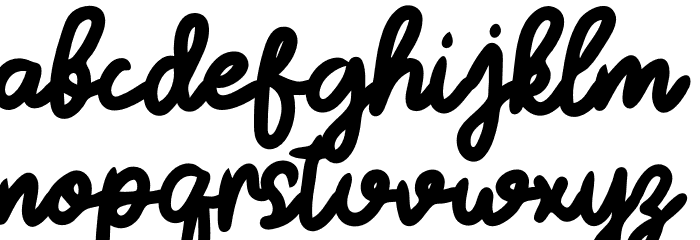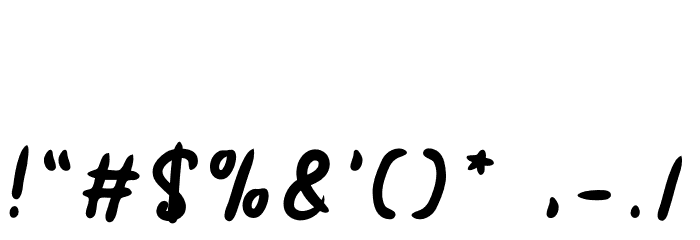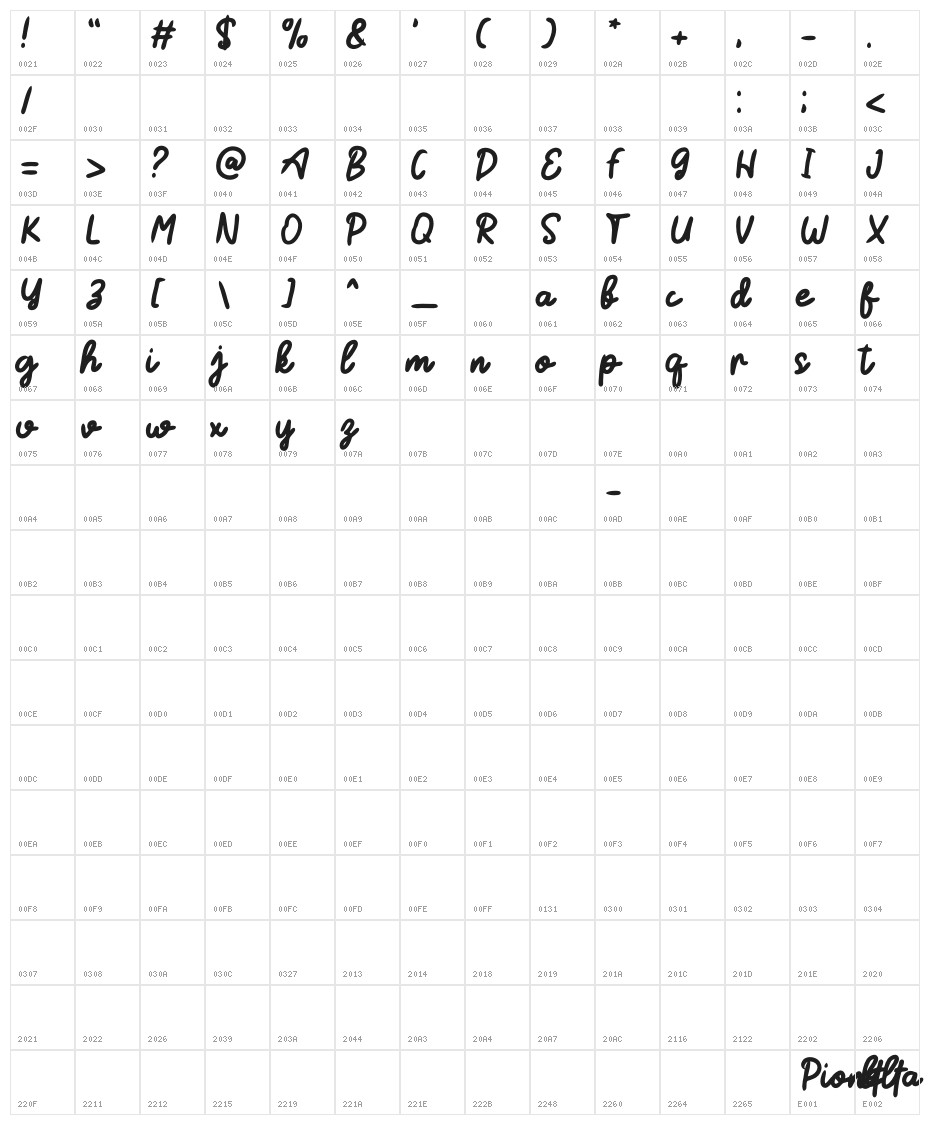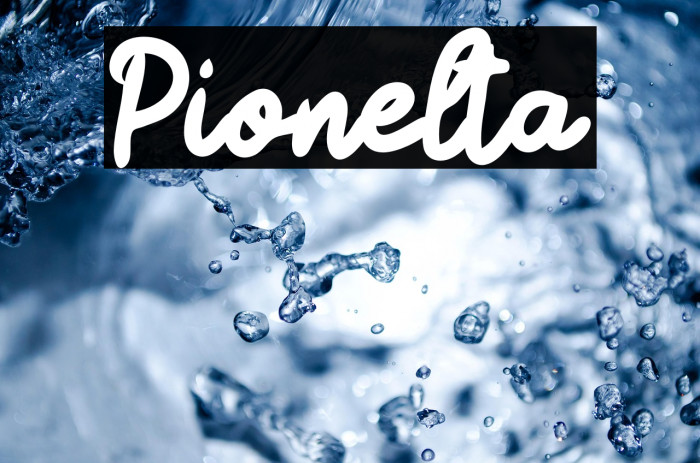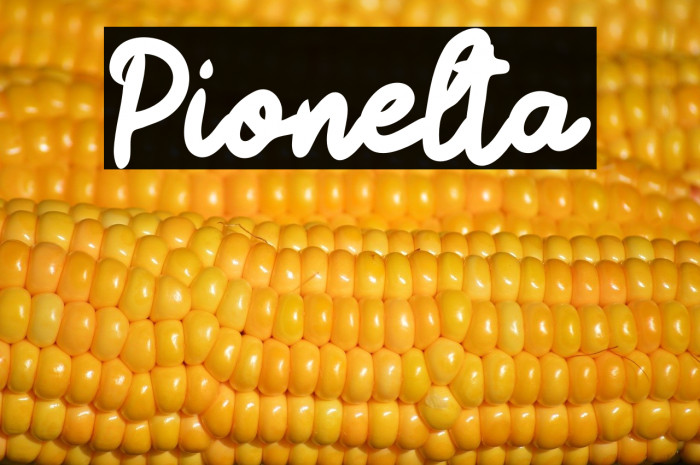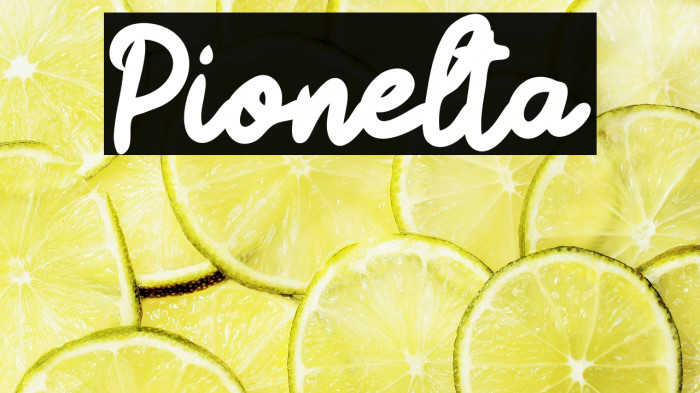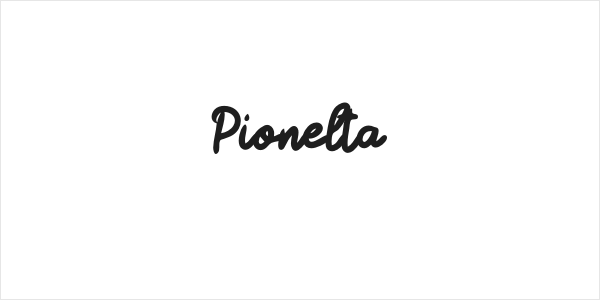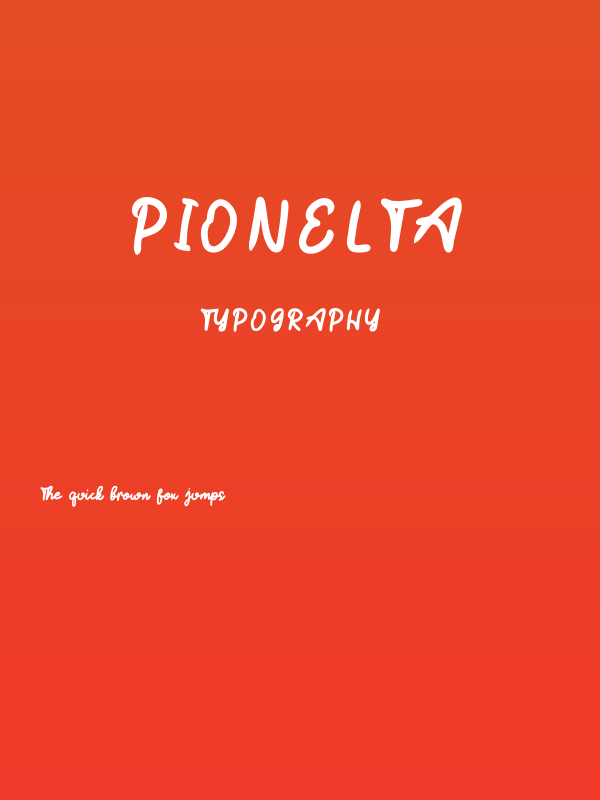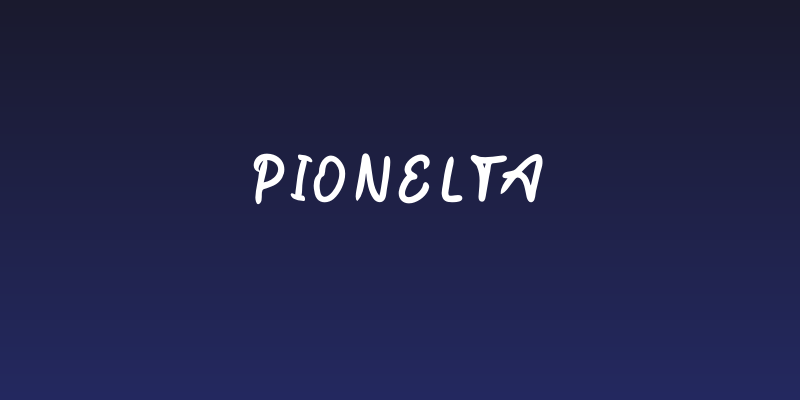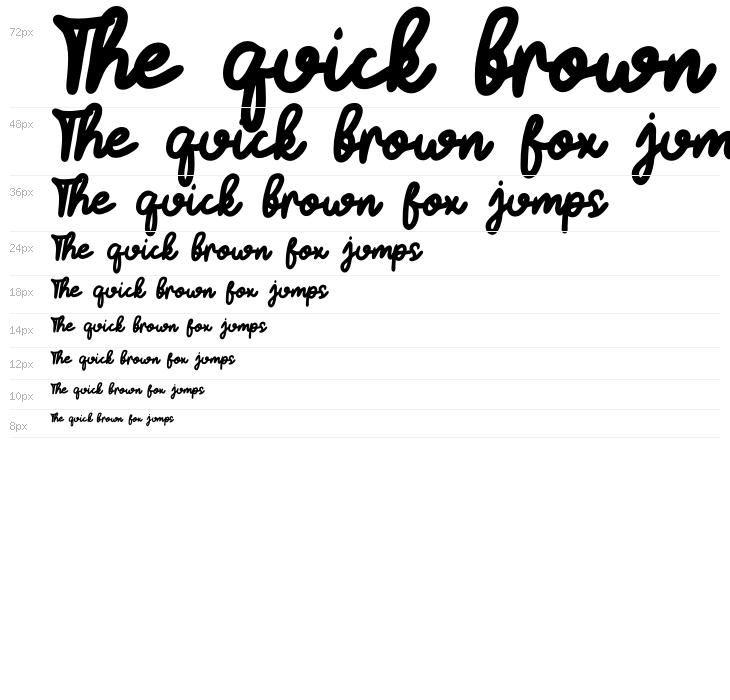
Pionelta Font
This font features a bold and expressive handwritten style, characterized by smooth, flowing curves and a playful, casual appearance. The uppercase letters maintain a consistent height, while the lowercase letters exhibit a slight slant, adding to the dynamic feel. The strokes are thick and uniform, providing a strong visual impact. The font includes a full set of uppercase and lowercase letters, numbers, and a variety of special characters, making it versatile for various design needs. Its informal and friendly style makes it suitable for creative projects that require a personal touch.
A bold, playful handwritten font with smooth, flowing curves.
- Proposed Projects: Ideal for greeting cards, invitations, logos, and social media graphics.
- Overall Style: Casual
- Use Case: Logos, Invitations, Social media graphics